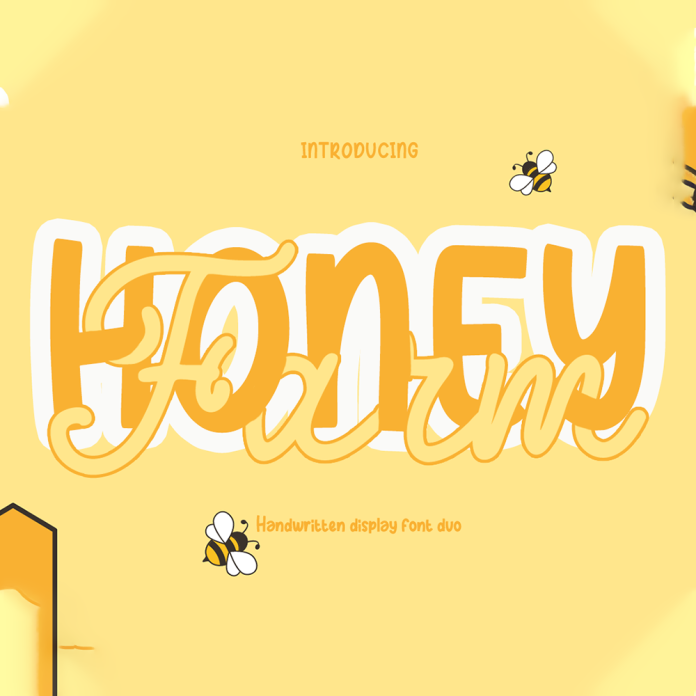
Honey Farm Font Duo is a charming and versatile font with a handwritten script and a bold sans serif. Perfect for adding a whimsical touch to any project, this duo is ideal for branding, packaging, invitations, and more. Its playful yet elegant style captures the essence of a cozy honey farm.